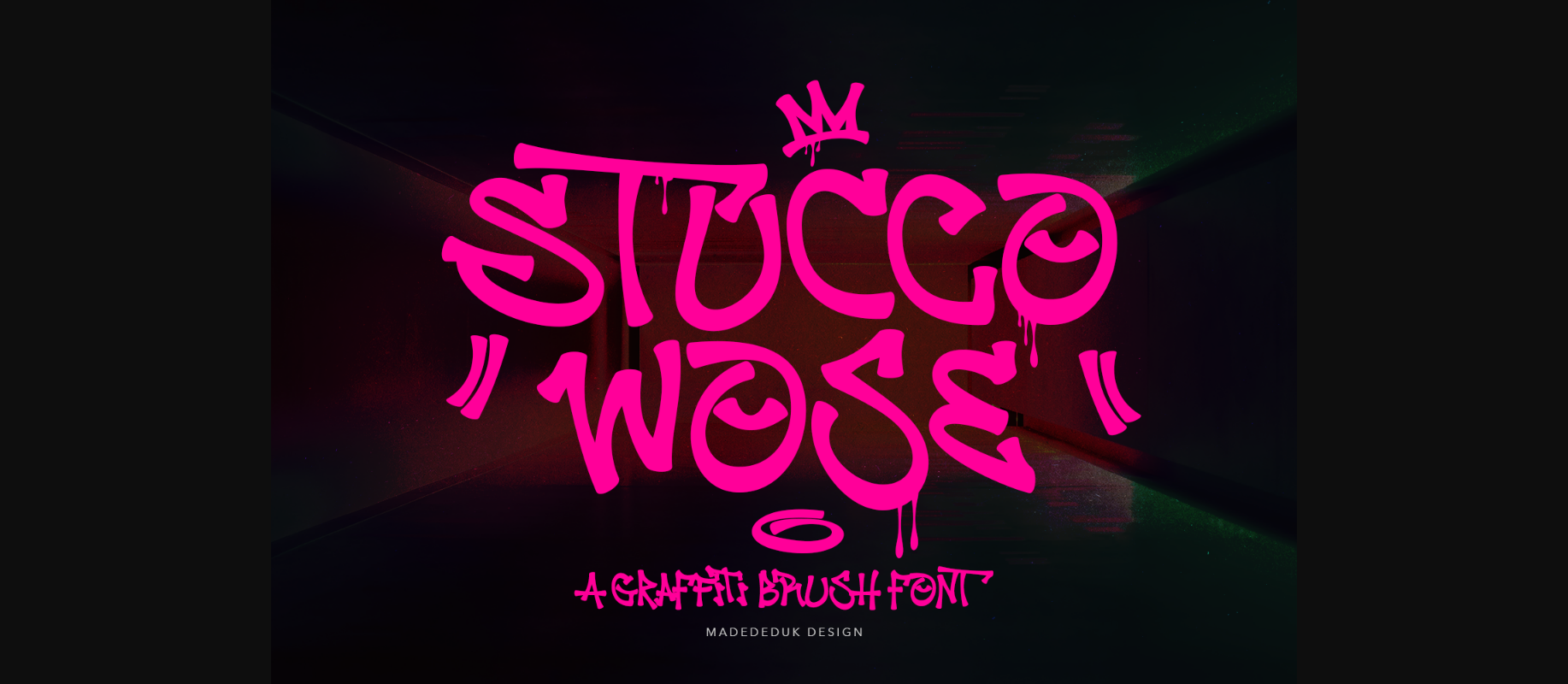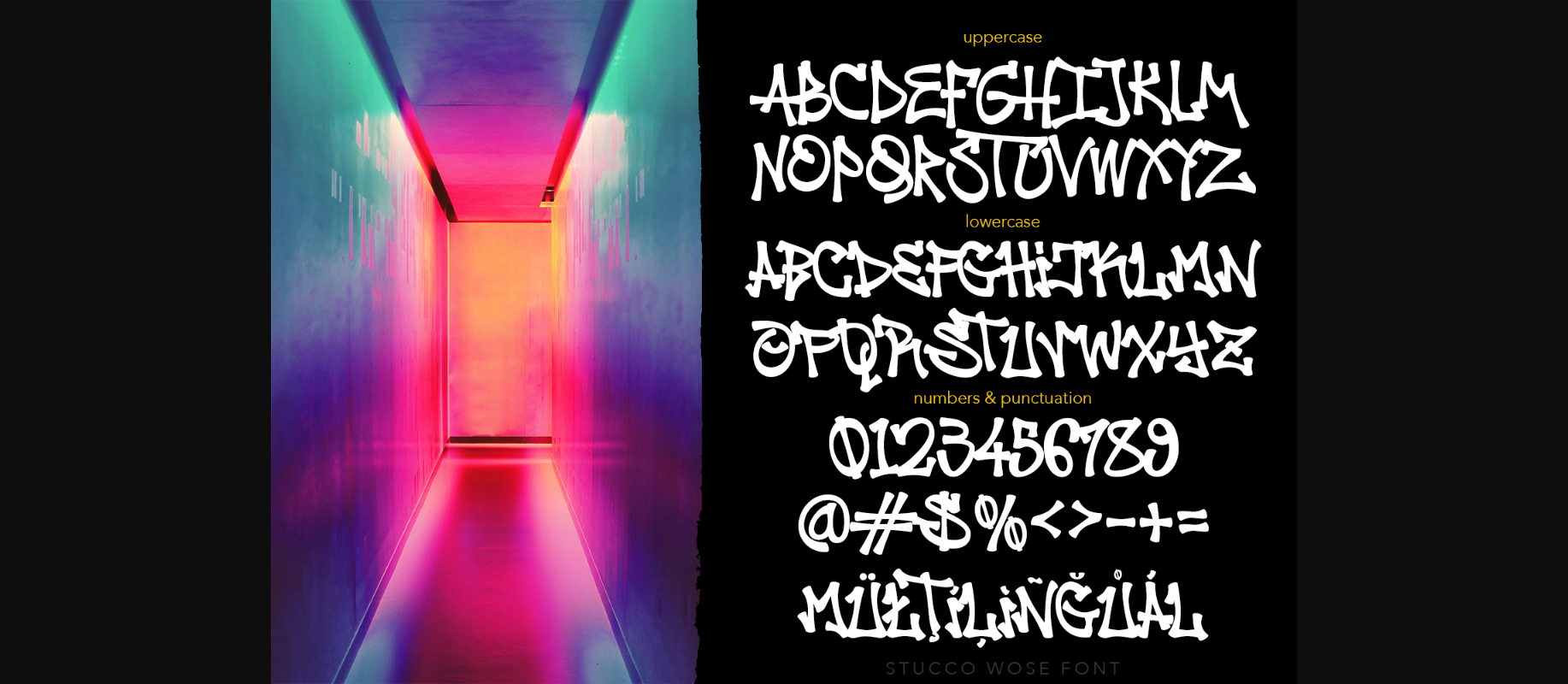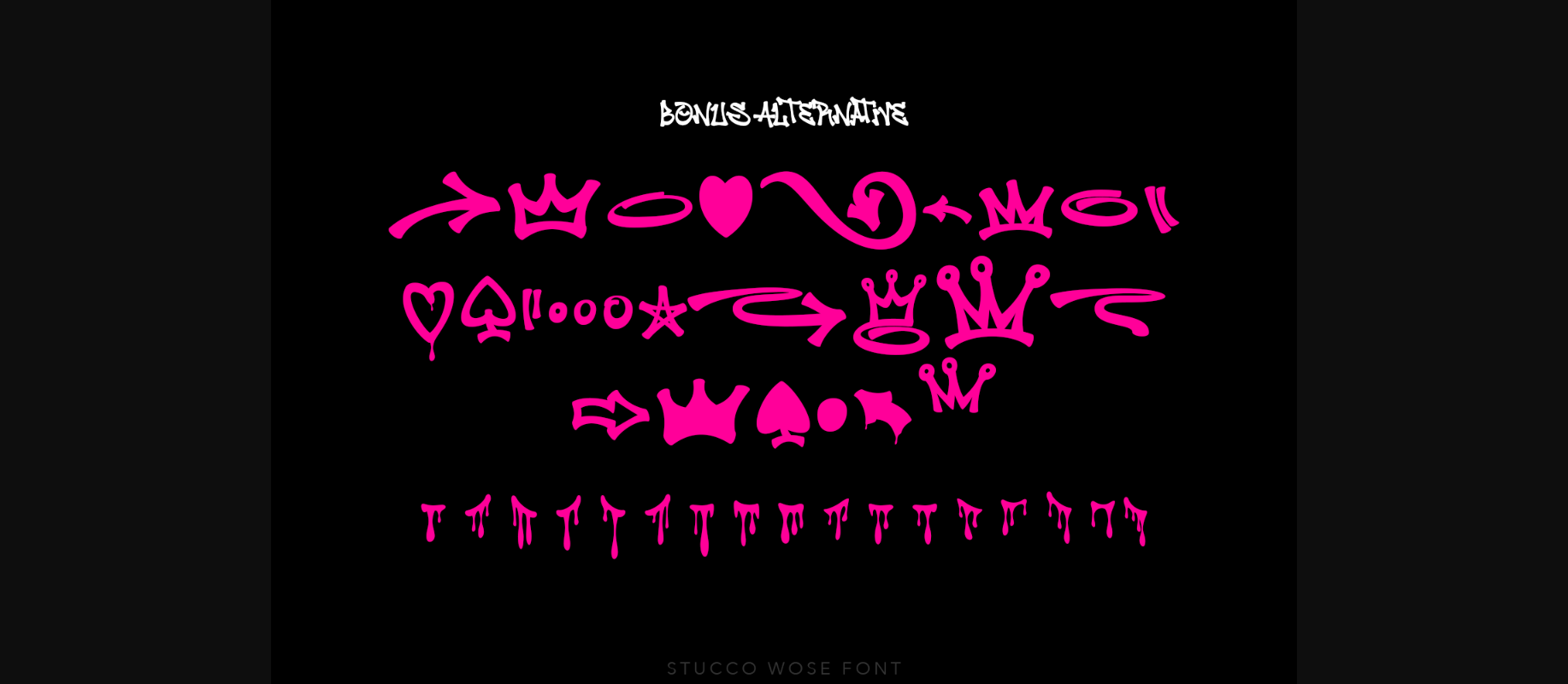
About Stucco Wose Font
Stucco Wose is a graffiti font inspired from 90s street hip hop style. Clear and unique you can explore and combine creating rhythm for comfortable reading. This font is perfect for any project, logotype, stickers, packaging design, headlines, brand identity, t-shirt, posters, magazines, books, Instagram, websites, and many more.